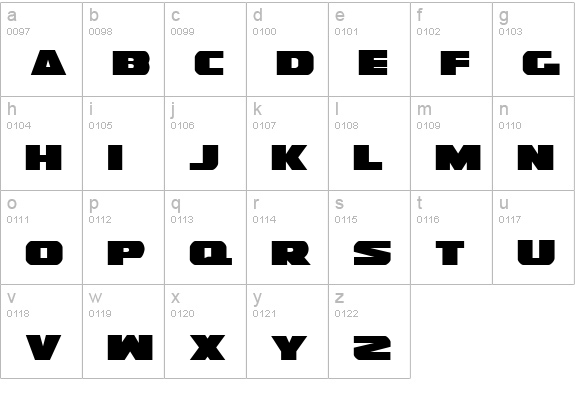
Guardian Expanded is a distinctive, extended-width variant in the Guardian typeface family \xE2\x80\x94 well suited to design and typography projects.
Guardian Expanded is a modern and versatile font that exudes sophistication and elegance. Its sleek lines and slightly extended characters make it a perfect choice for a wide range of design projects, from branding to editorial design. The Guardian Expanded font strikes the perfect balance between professionalism and creativity, making it suitable for both corporate and artistic endeavors. One of the best things about Guardian Expanded is that it is free to download at FontsMarket.com. This means that you can easily access this high-quality font without any cost, allowing you to enhance your projects with a touch of refinement and style. Whether you are a seasoned designer looking for a fresh font to add to your collection or a newcomer eager to experiment with typography, Guardian Expanded is an excellent choice that won't break the bank. Download Guardian Expanded for free today at FontsMarket.com and elevate your designs with this contemporary and sophisticated typeface.